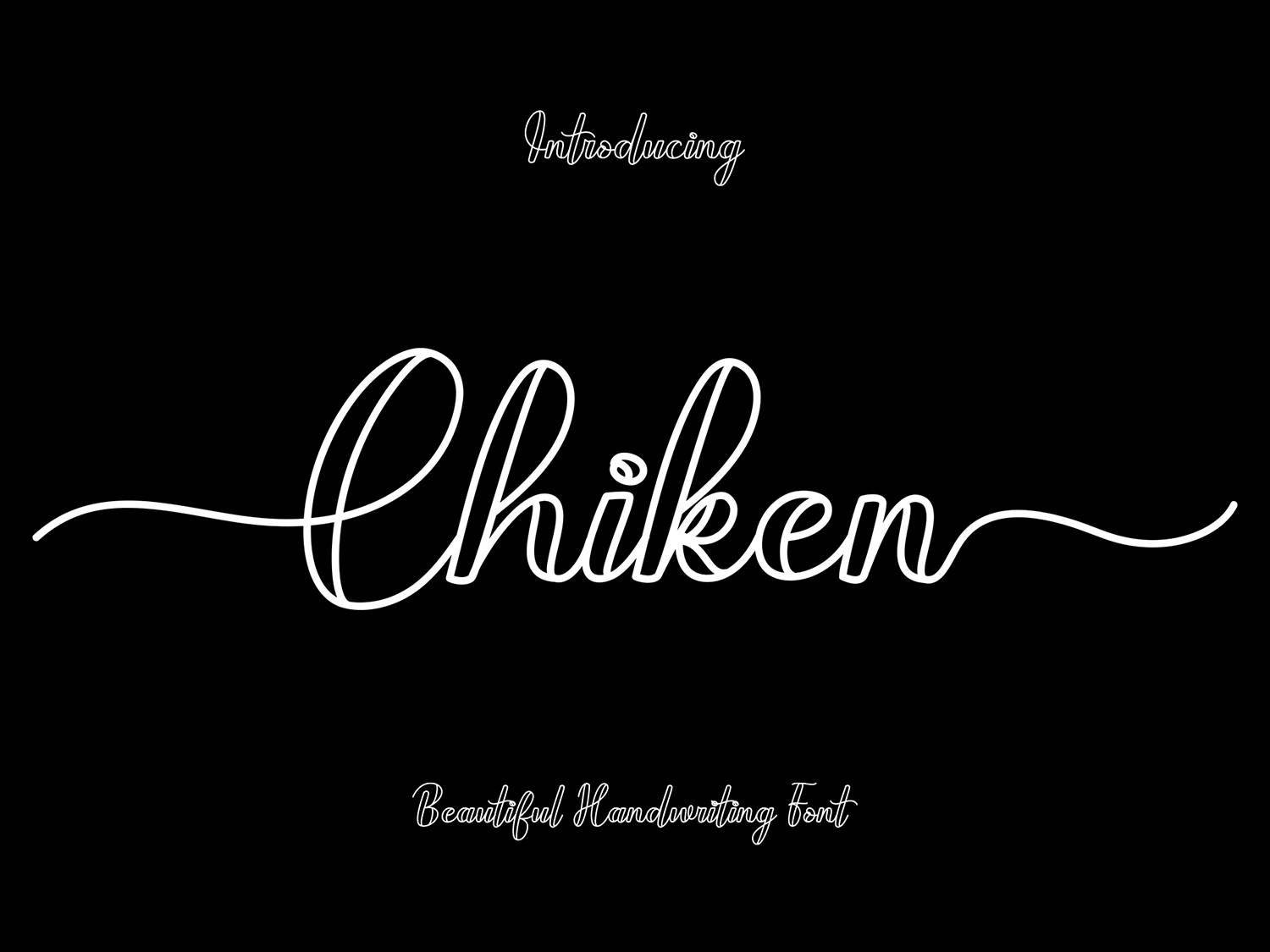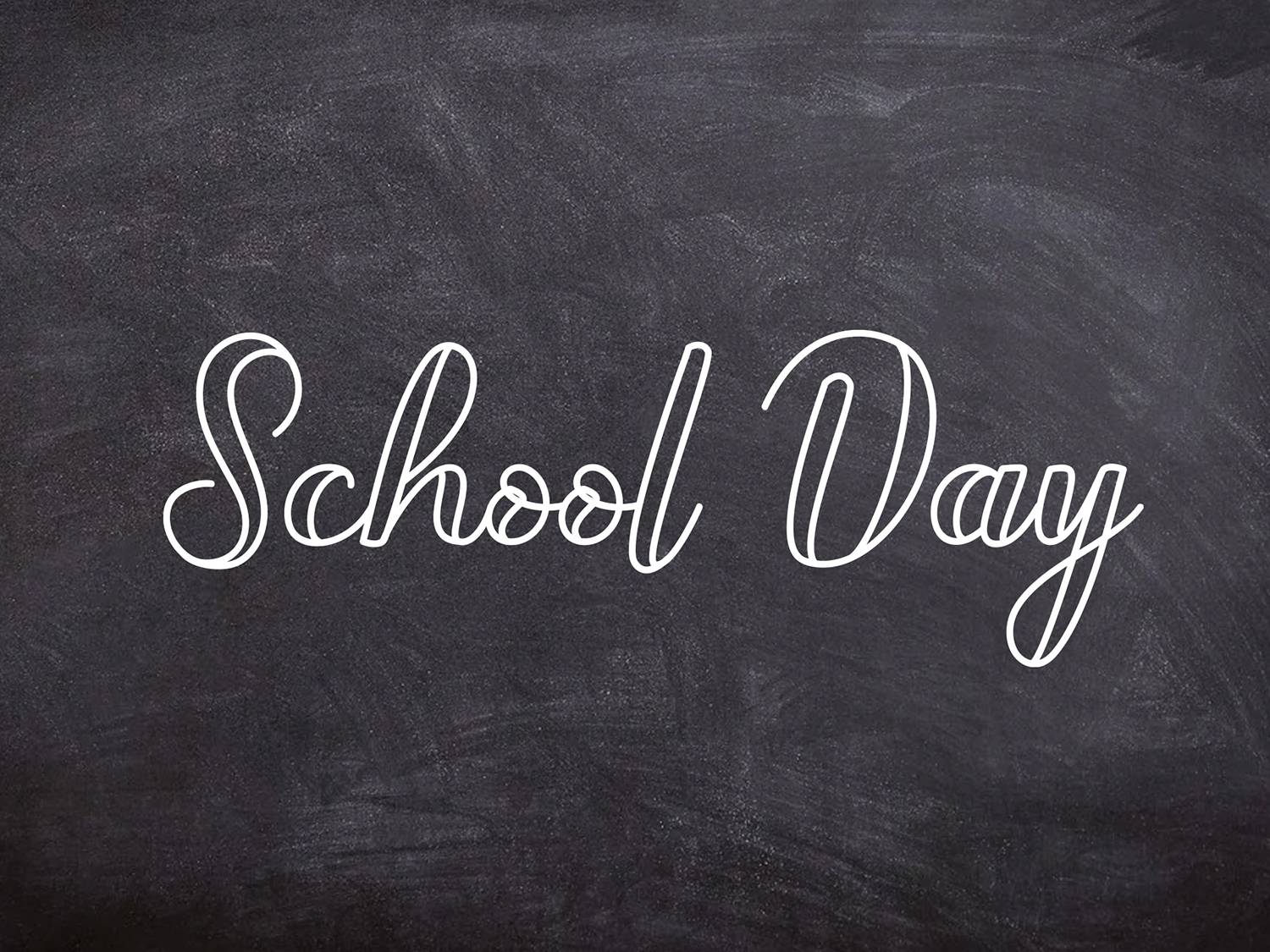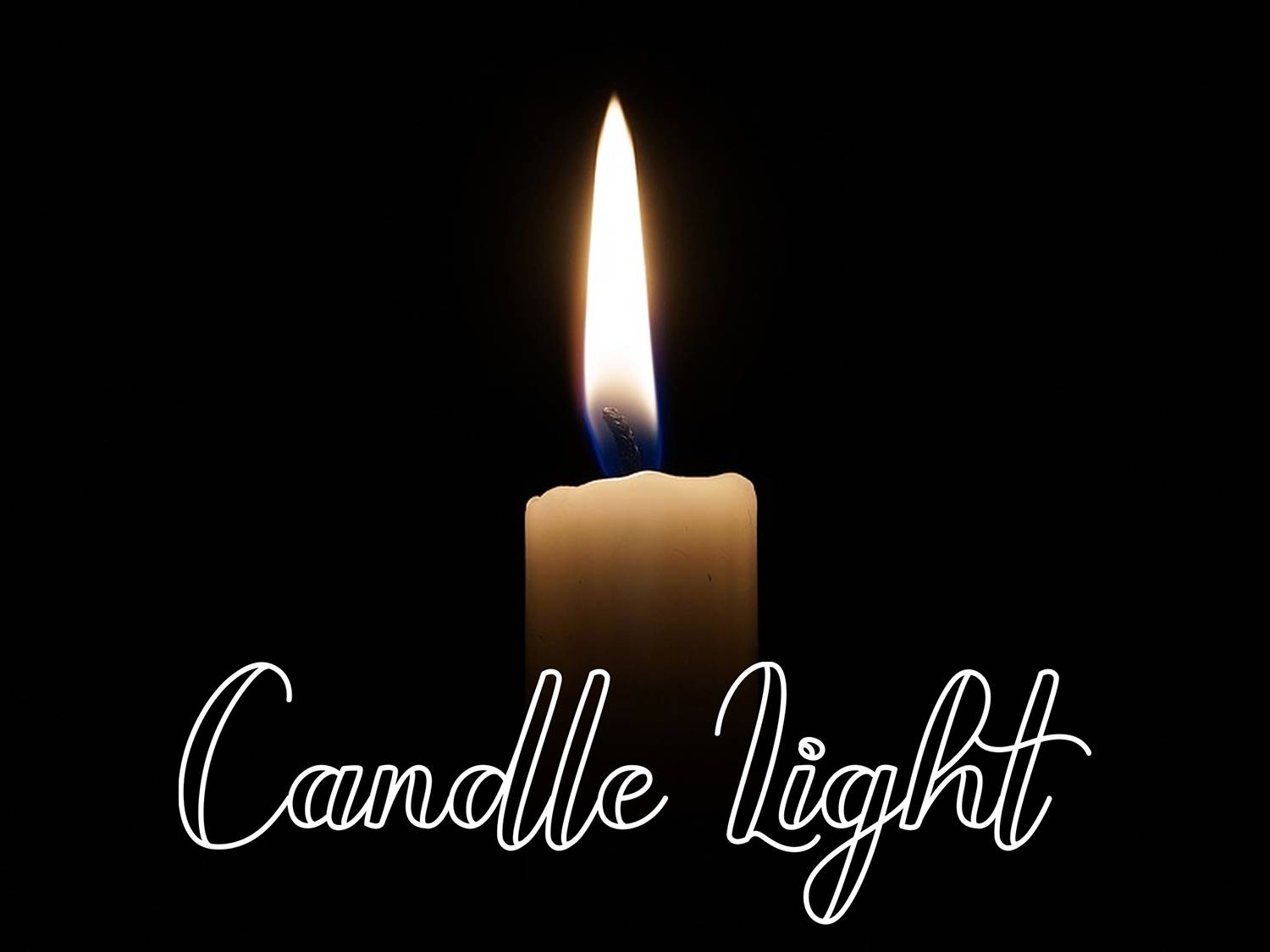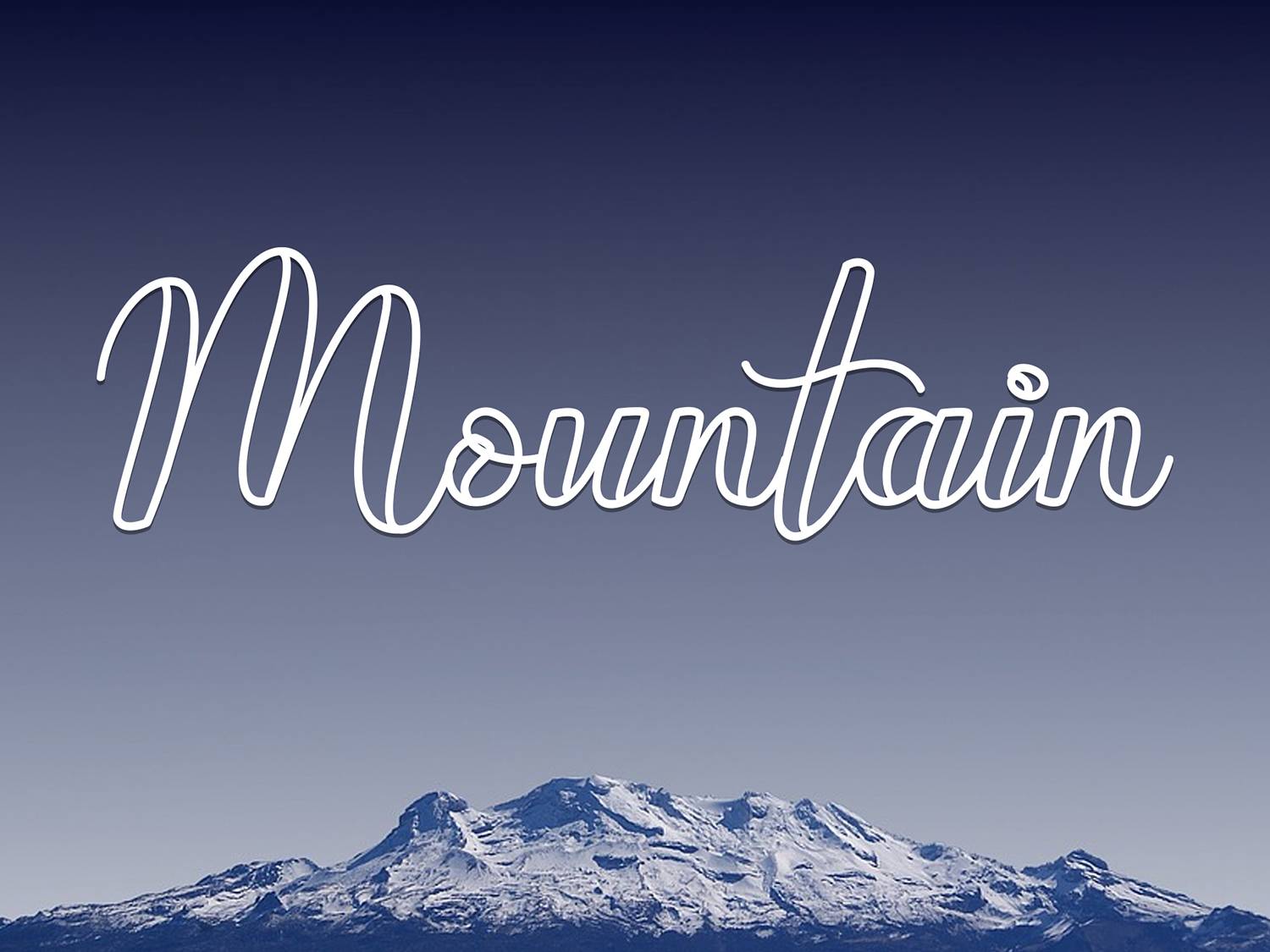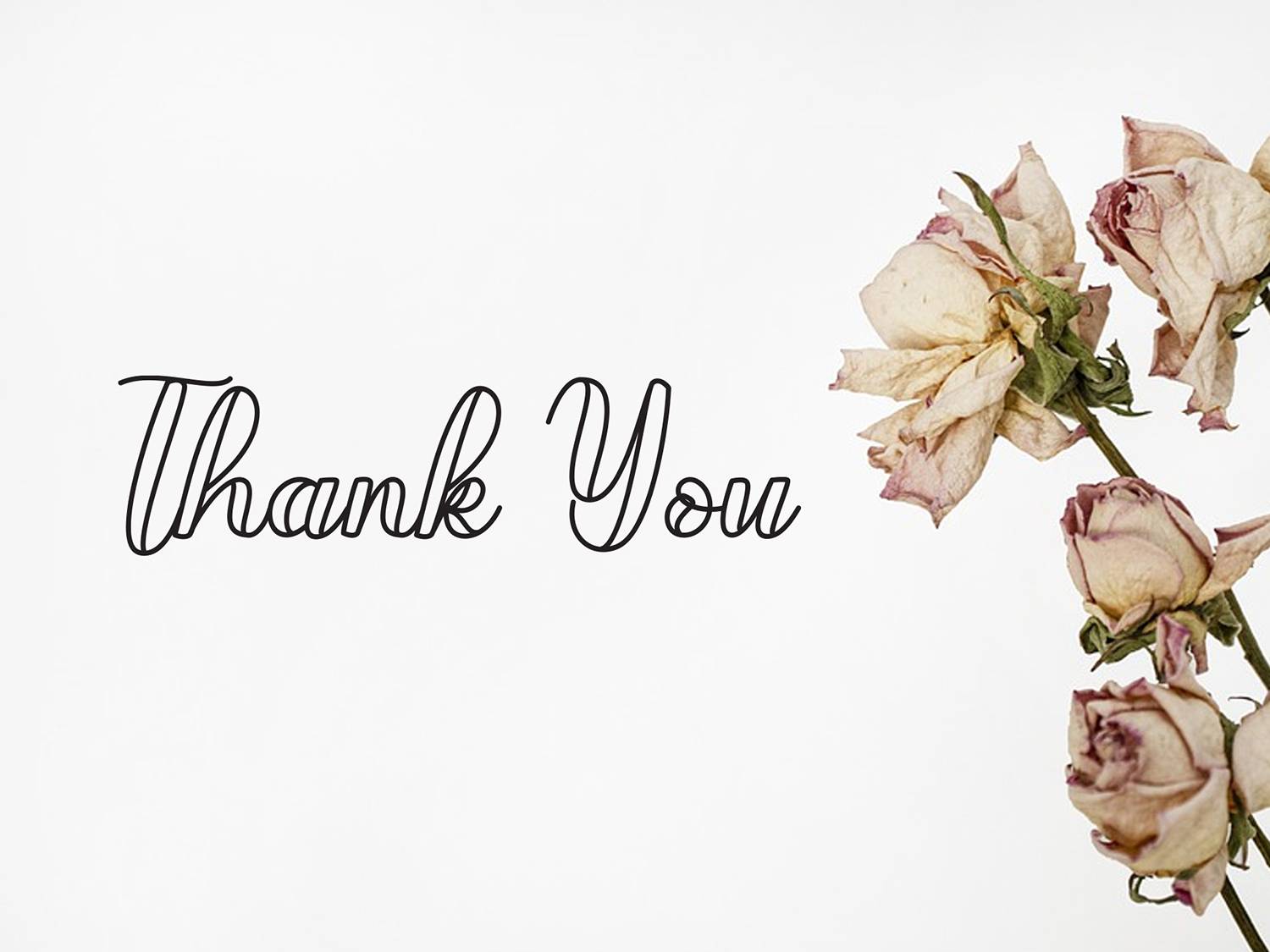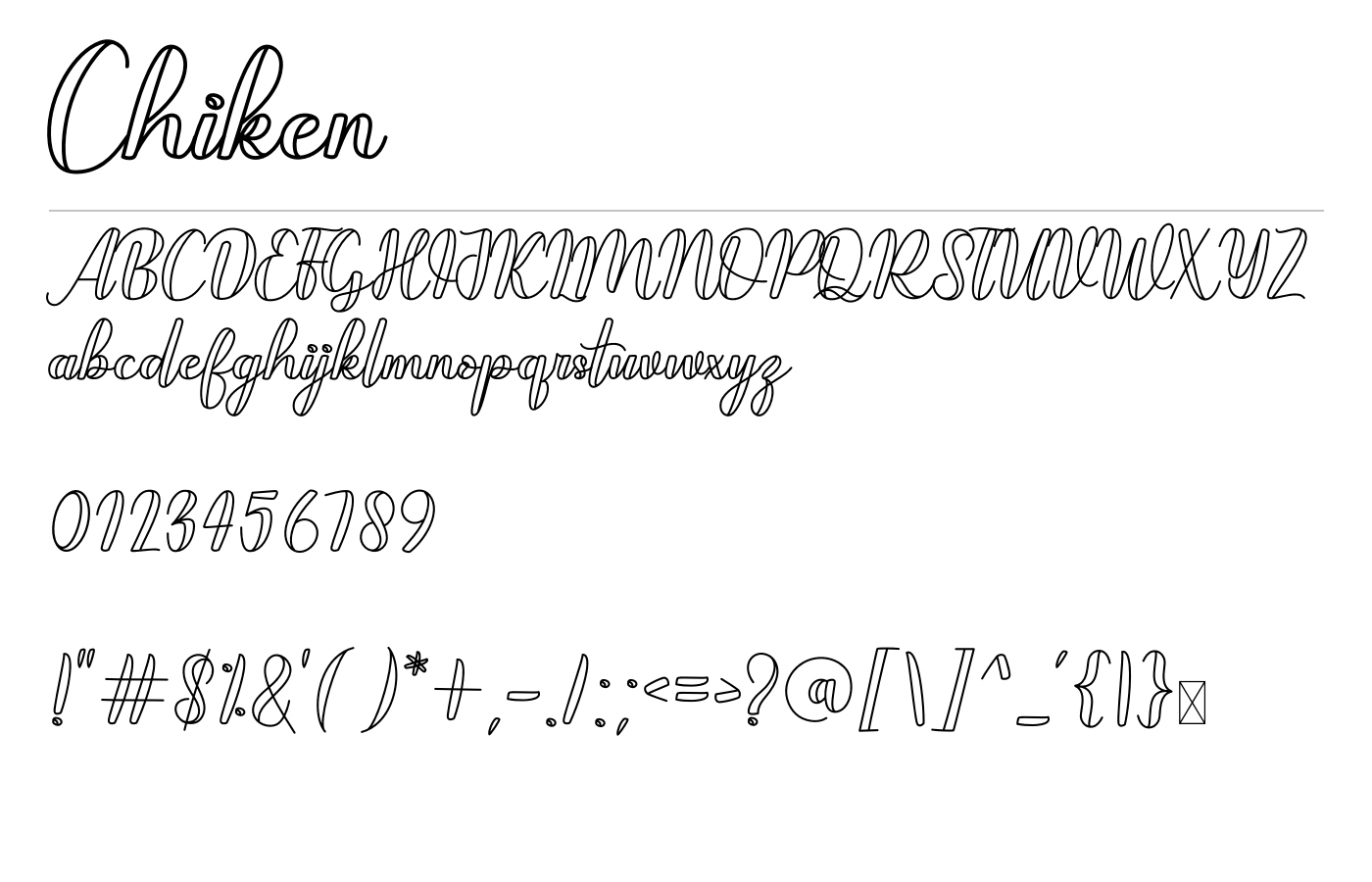
Chiken Font is a delicate, script-style typeface with elegant, thin strokes that create a graceful and airy feel. Its fluid, connected letterforms feature a light weight and subtle slant, making it ideal for feminine, romantic, or stylish branding and design projects. Best suited for logos, invitations, and headlines, this font brings a sophisticated yet approachable charm to any creative work.
Chiken Font
About Chiken Font